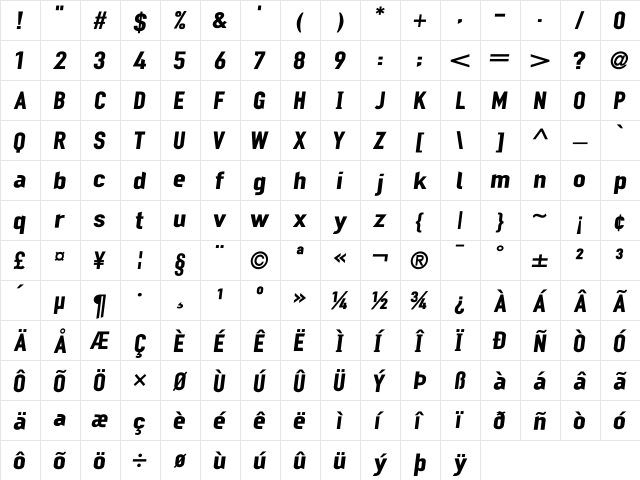
MechanicGothic Medium Italic
Design Context for MechanicGothic Typeface
MechanicGothic has the quiet confidence of well-executed sans-serif typography: versatile, unobtrusive, and dependable at any size. The slanted form adds forward momentum and visual energy.
Font Pairing: Works well alongside a characterful serif or display font that can carry the expressive load while MechanicGothic handles the functional copy.
Pro Tip: Pair MechanicGothic with a display or serif font for headlines — its neutral character makes it an excellent supporting player in complex typographic systems.